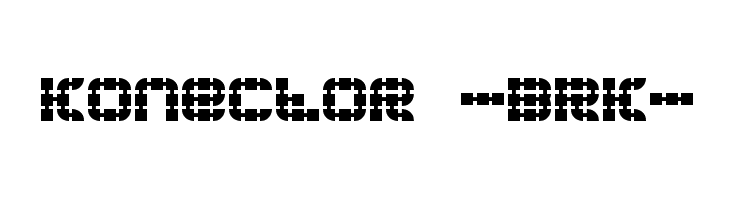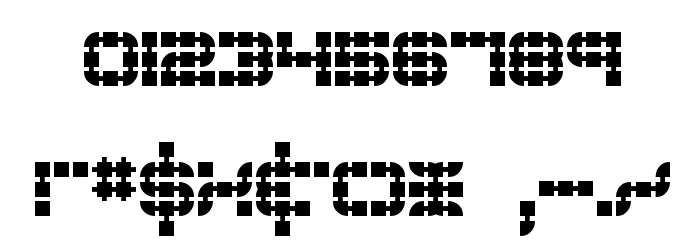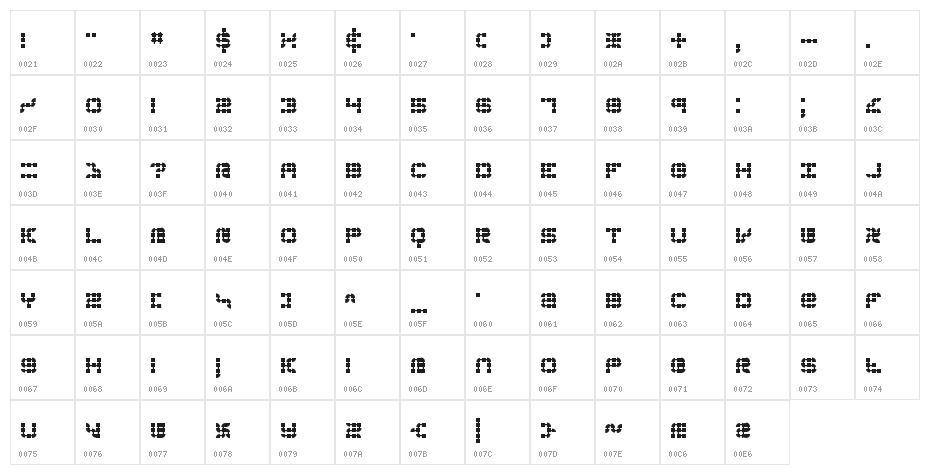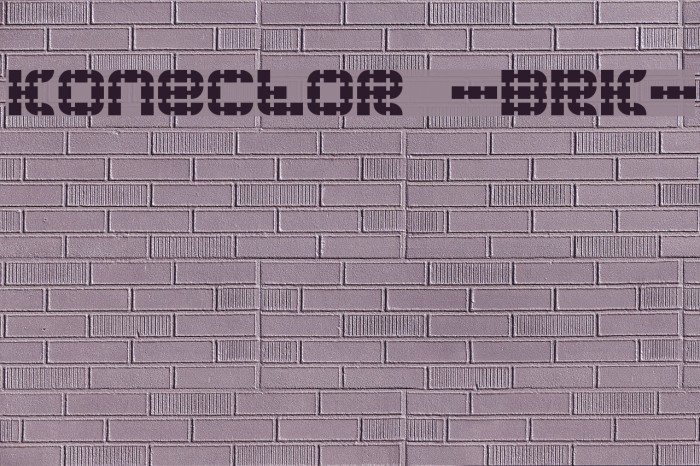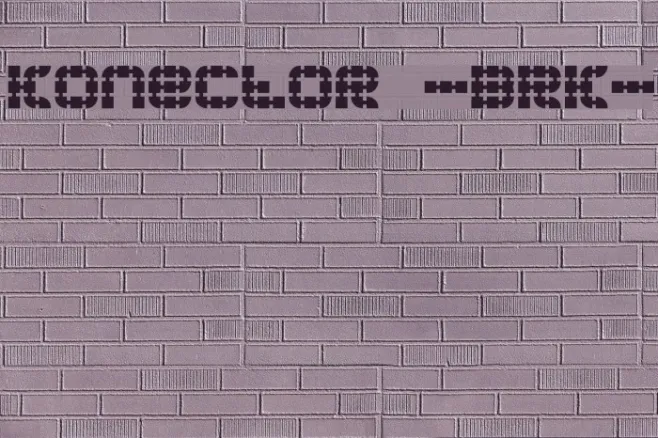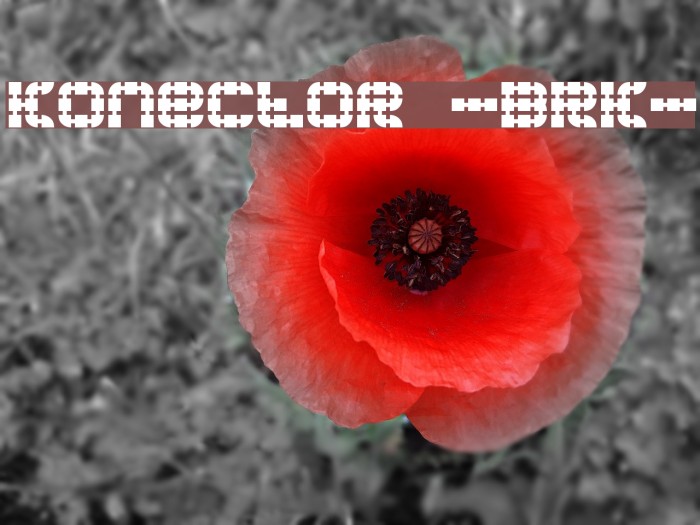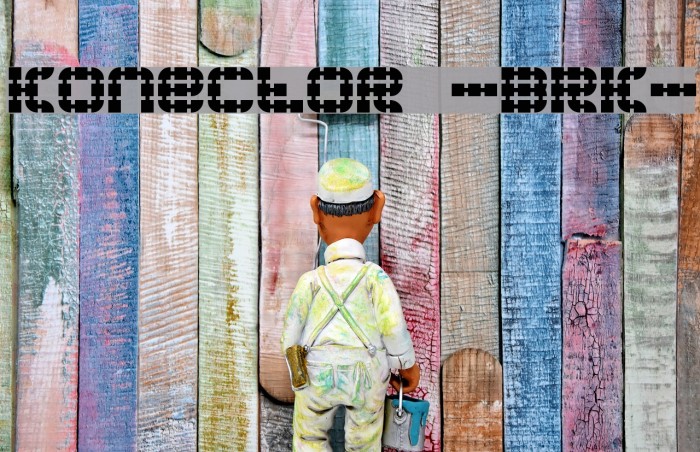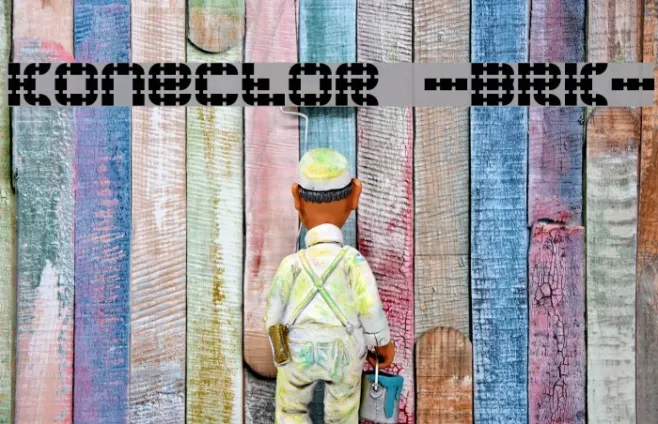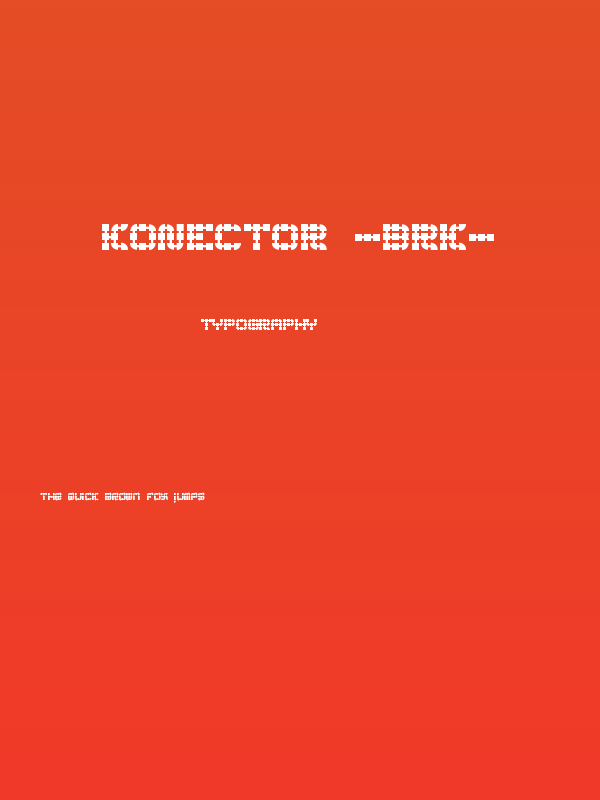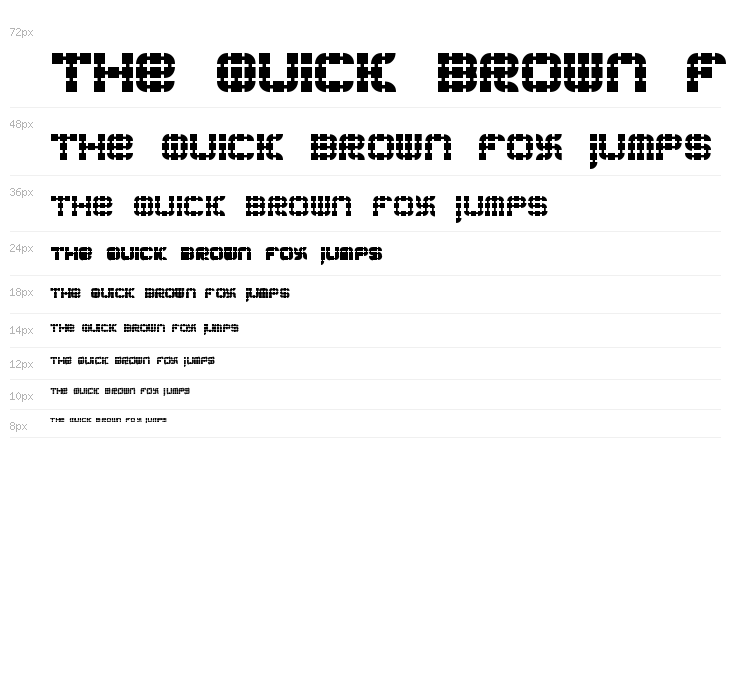
Konector -BRK- Font
Konector -BRK- Description
This font features a unique, grid-like pattern that gives it a distinctly digital and futuristic appearance. Each character is composed of a series of interconnected squares, creating a pixelated effect that is both bold and eye-catching. The uniformity of the squares across all characters provides a cohesive look, while the geometric design adds a modern, tech-inspired feel. The font maintains consistent line thickness throughout, contributing to its structured and robust aesthetic. Its distinctive style makes it suitable for projects that aim to convey innovation and modernity.
| Proposed Projects | Ideal for tech-related branding, digital art projects, video game titles, or any creative work that requires a modern, innovative look. |